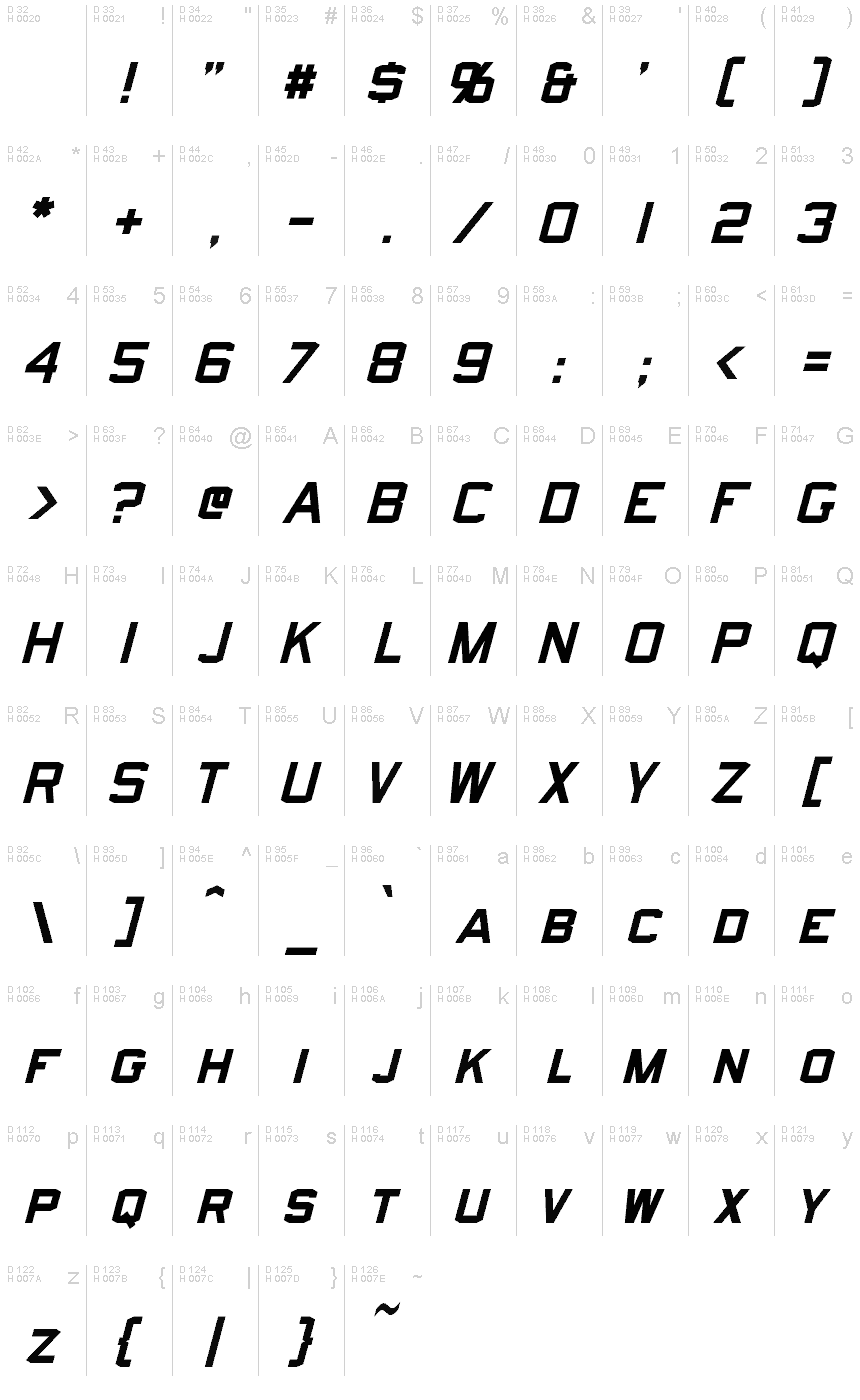
Norfolk Italic
Norfolk is a striking, military-inspired font that commands attention. Designed by Neale Davidson, it boasts a bold, angular aesthetic reminiscent of naval lettering. The full alphabet, including lowercase letters and extended punctuation, offers versatility for a range of design applications.
The font's sturdy, robust lines convey a sense of strength and authority, making it well-suited for headlines, branding, and logos. Its distinct character also lends itself to editorial layouts, signage, and packaging where a bold, confident visual identity is desired. With regular, bold, italic, and bold-italic weights, Norfolk provides designers ample flexibility to explore its versatile personality across diverse projects.